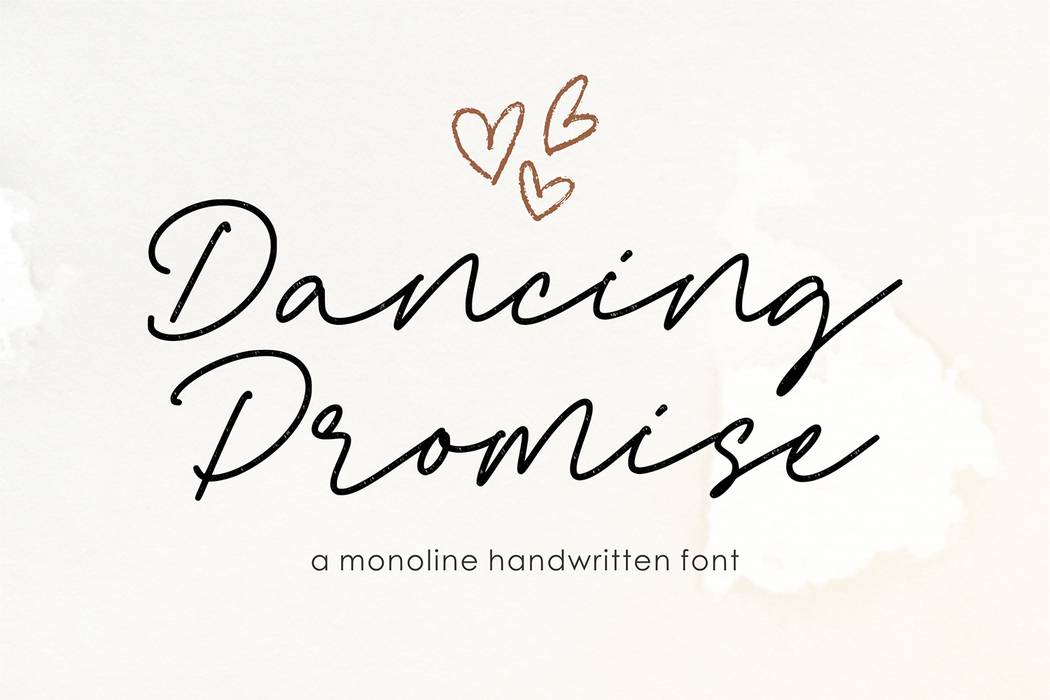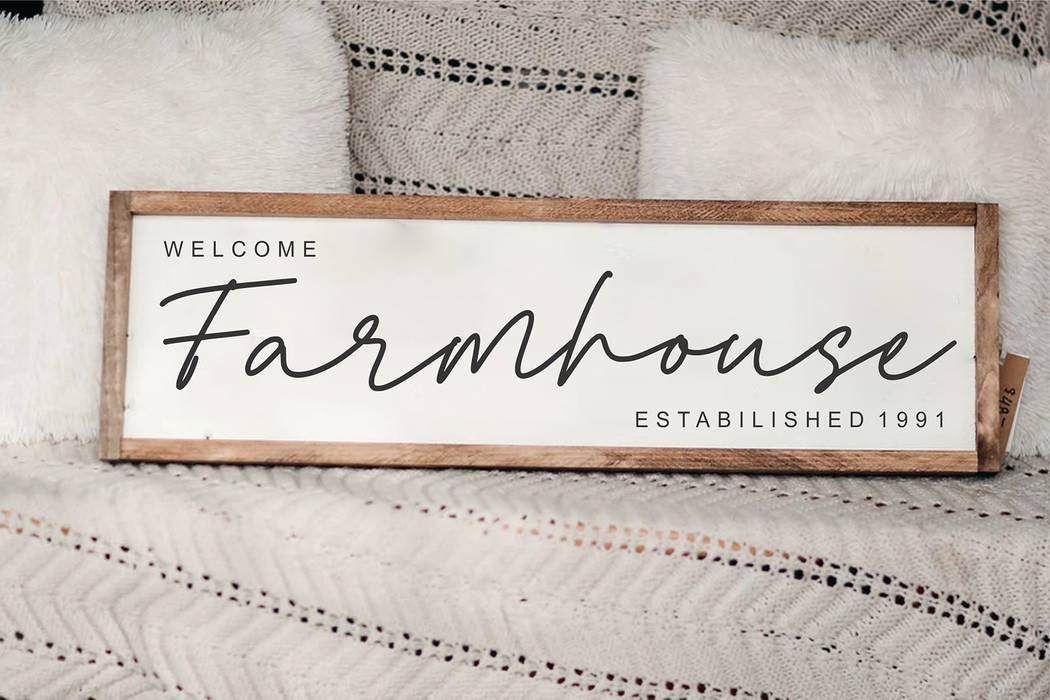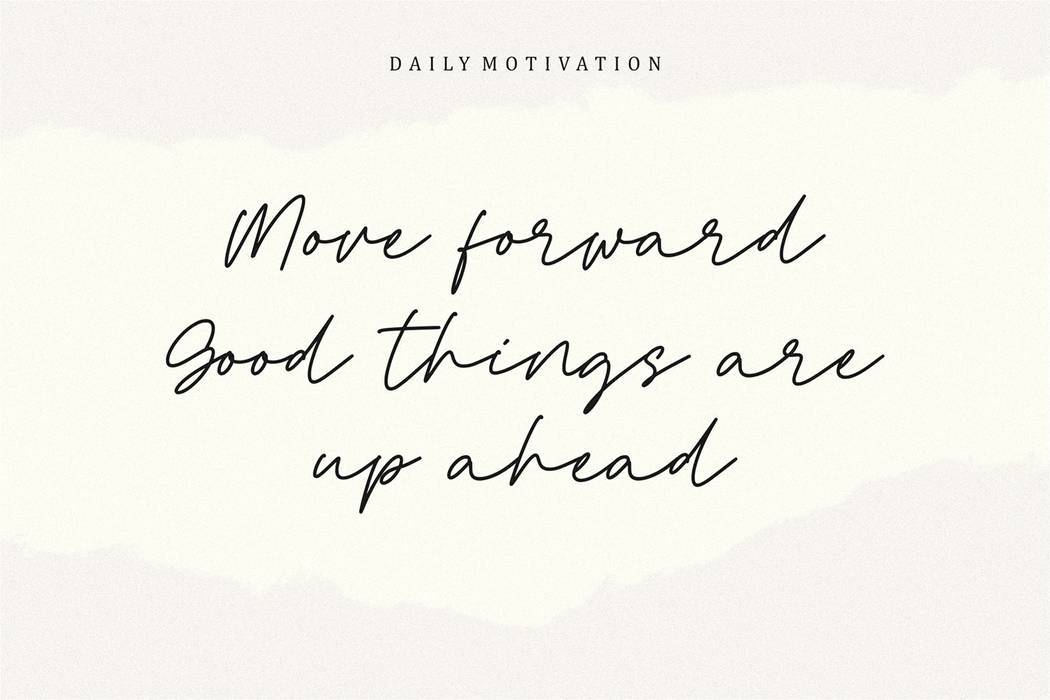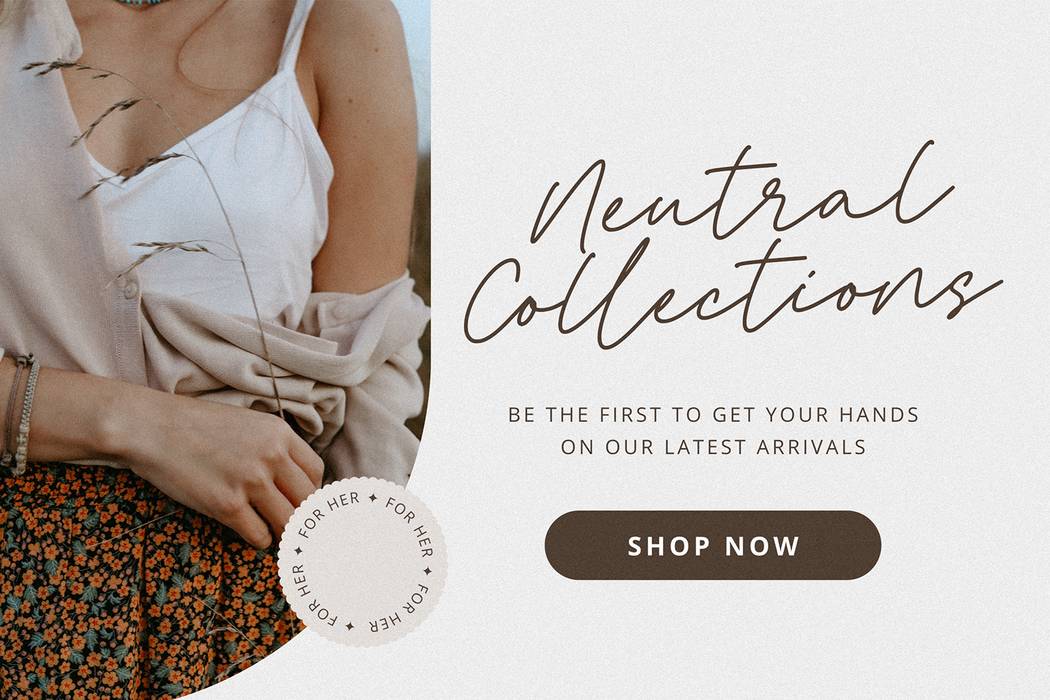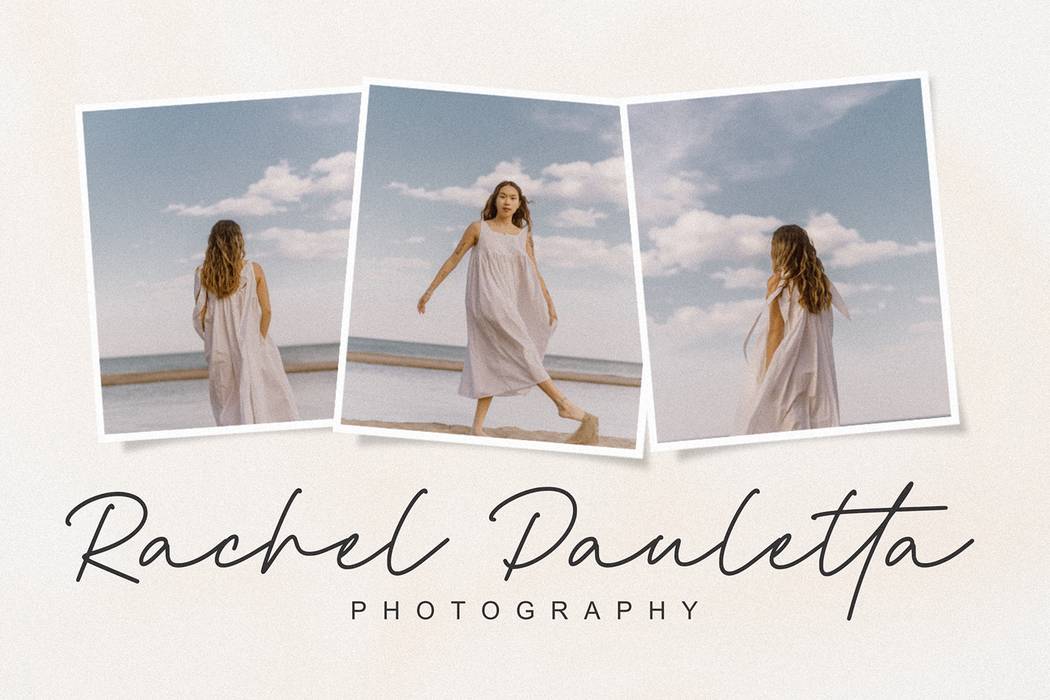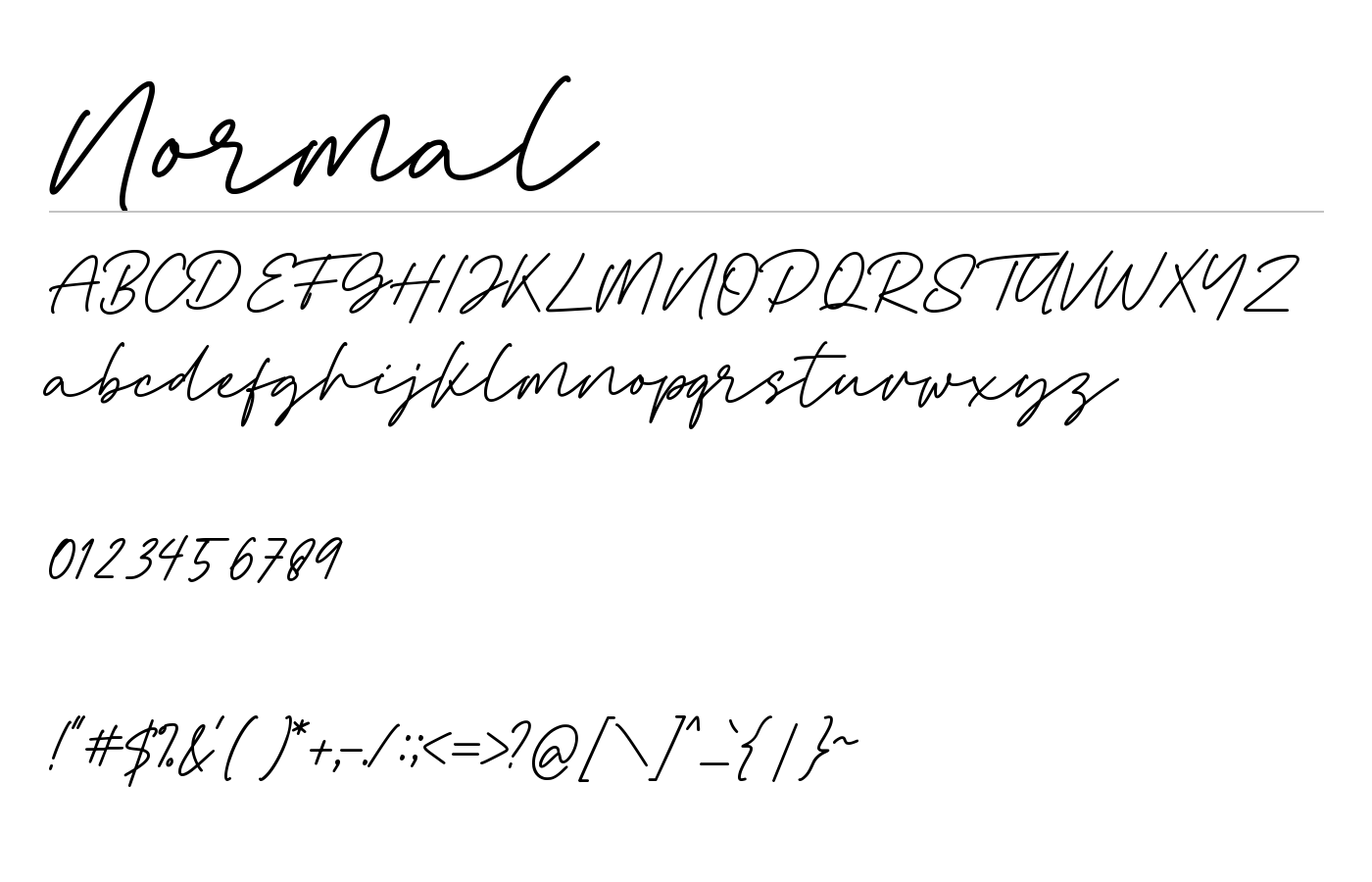
Dancing Promise is a delicate, handwritten script font featuring elegant, flowing letterforms with a natural, personal touch. Its light weight and graceful strokes make it ideal for adding warmth and a sophisticated yet approachable feel to invitations, branding, and creative projects that seek a handcrafted, stylish look.
Dancing Promise Font
About Dancing Promise Font